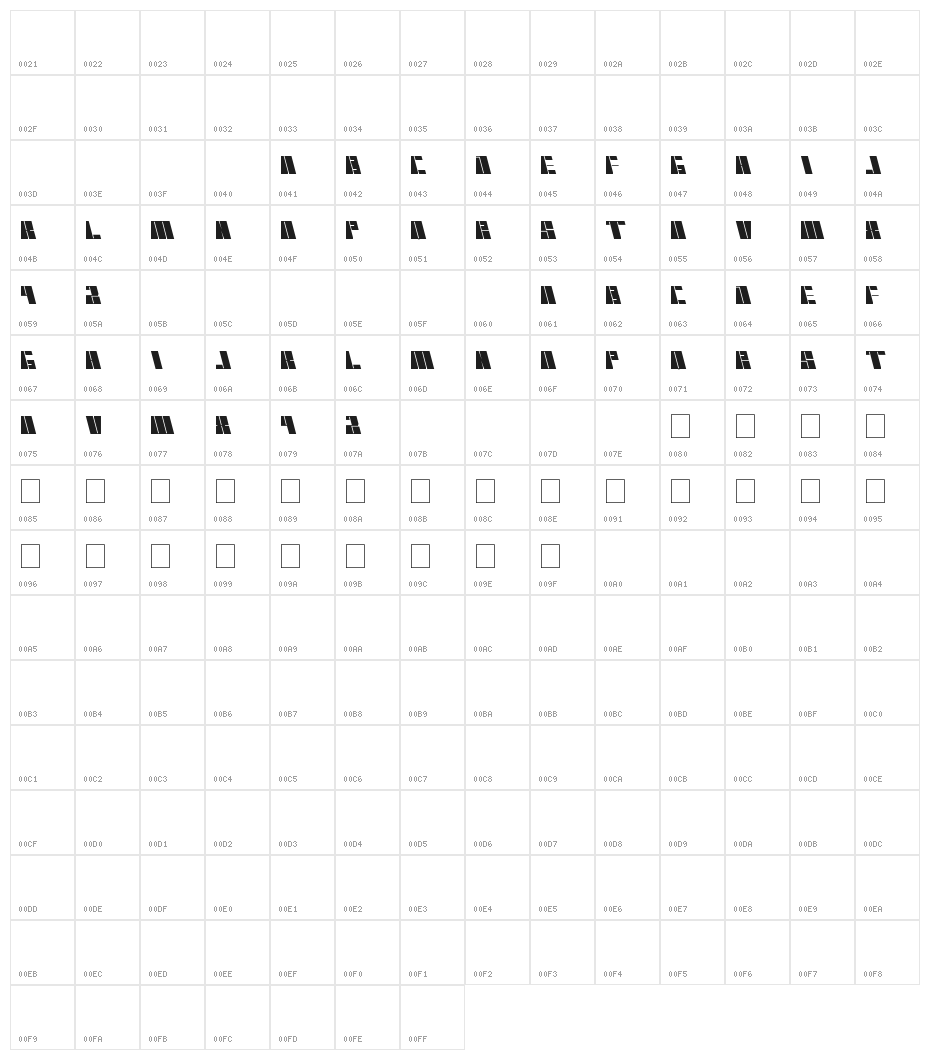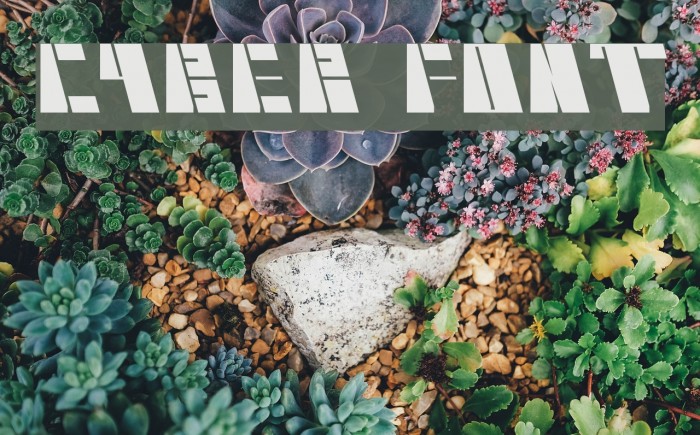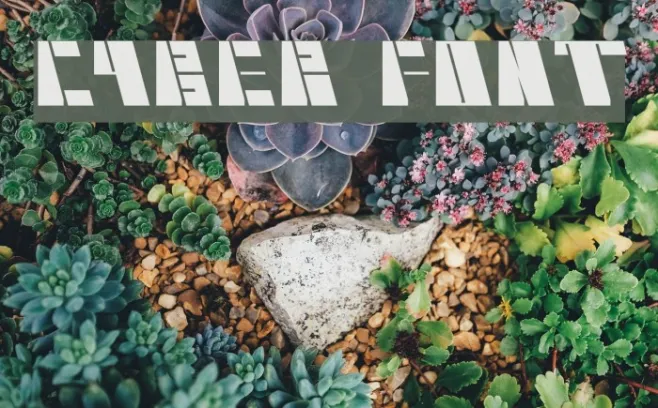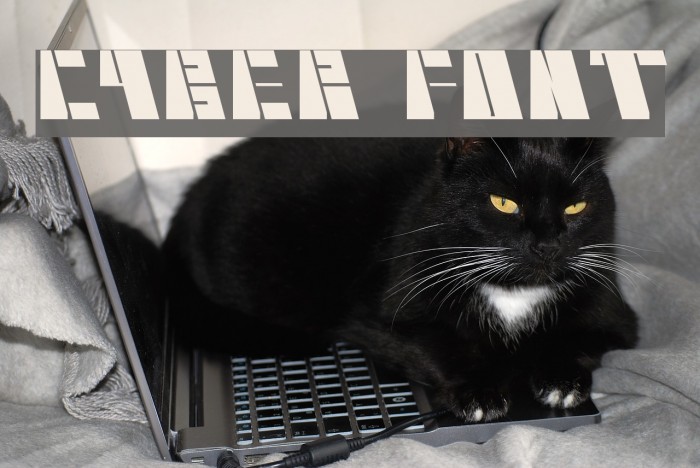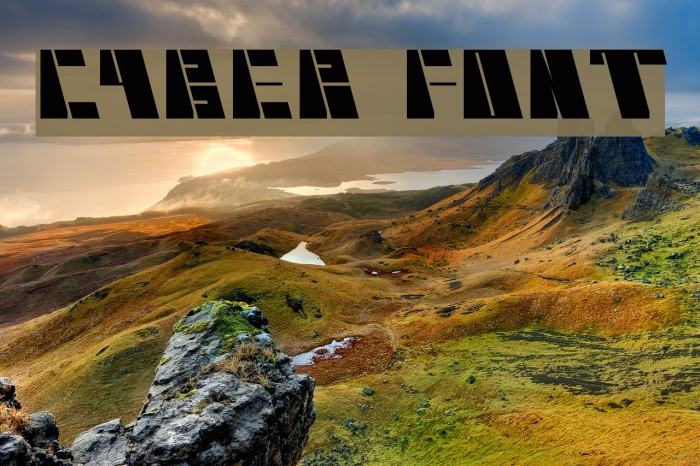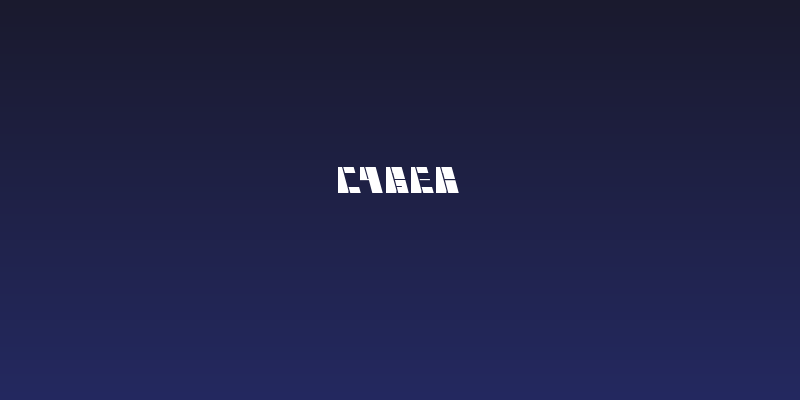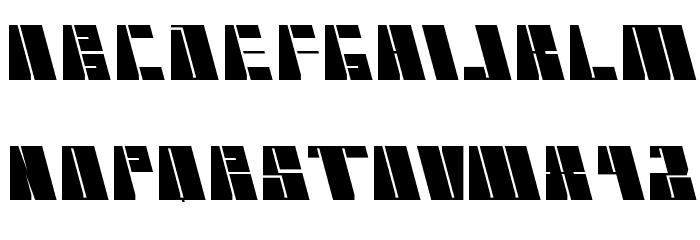
cyber Font
cyber Description
This font features a bold, futuristic design with a distinctly geometric and angular style. Each character is constructed with sharp, straight lines and block-like forms, giving it a digital and high-tech appearance. The font's aesthetic is reminiscent of cyberpunk themes, making it ideal for projects that require a modern and edgy look. The uppercase and lowercase letters maintain a consistent style, with minimal differentiation between the two, emphasizing uniformity. The numbers and special characters are equally bold and angular, ensuring a cohesive visual experience across all text elements.